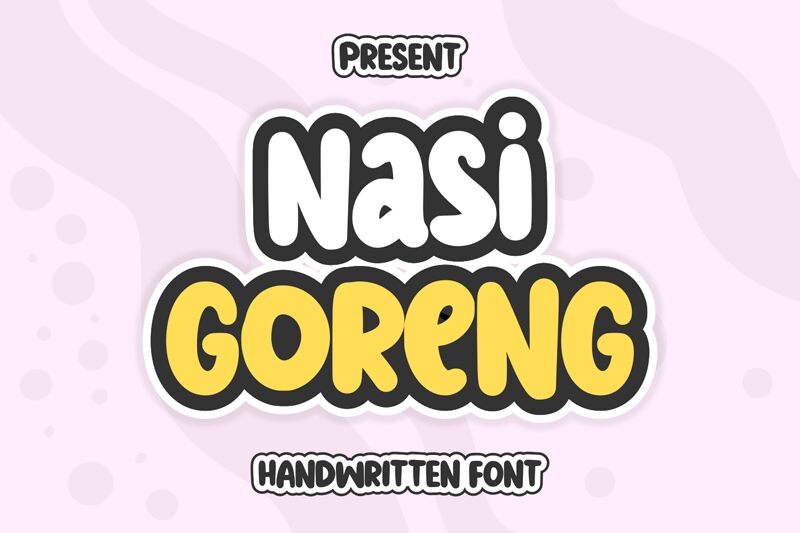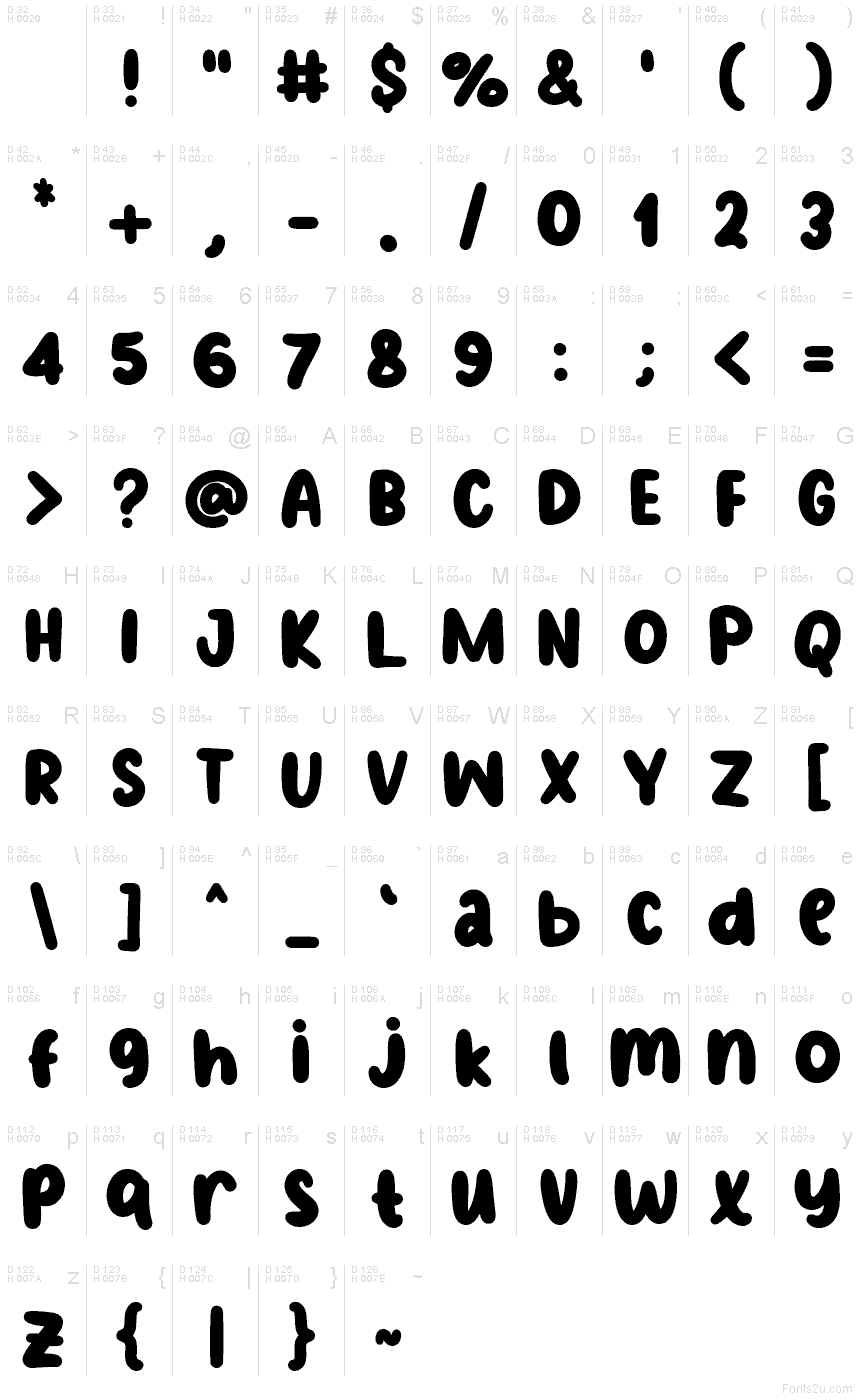
Nasi Goreng font by Makashi is a free cartoon display font that brings a sticky, sauce‑slick charm to big headlines. Its chunky, rounded strokes feel like they’ve been piped from a pastry bag—soft, dense, and cheerful—while the gentle bounce keeps lines lively without getting messy. It reads boldly at a glance, making noisy visuals feel friendly instead of frantic.
Using Nasi Goreng, you can serve up playful logos, food truck signage, snack packaging, kids’ menus, festival posters, and punchy YouTube thumbnails. This free font shines when you want warmth and appetite appeal with zero fuss. Pair it with a light geometric sans for body copy, and let Nasi Goreng carry the headline flavor.